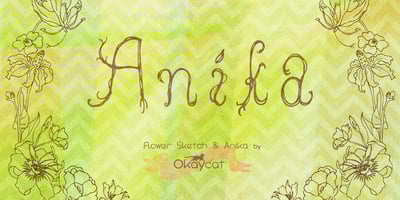
Anika
Anika font
Anika Font Family was designed by Natsuko Hayashida and published by Okaycat. Anika contains 1 styles and family package options. Anika consists of beautifully hand illustrated letters. Use it on projects for an artistic appearance. This font has a very organic feel, looking natural as if made of branches. Anika is extended, containing West European diacritics & ligatures, making it suitable for multilingual environments & publications.